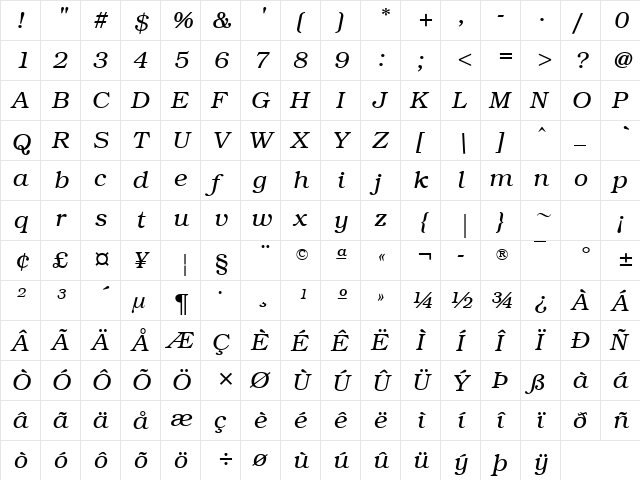
PC Brussels LightItalic
Design Context for PC Brussels Typeface
PC Brussels is a composed and adaptable typeface that performs quietly and consistently across a wide range of design contexts. The dynamic lean of this cut emphasises speed and emphasis in any layout. Its slender proportions lend an understated elegance to any composition.
Pro Tip: Use PC Brussels for emphasis, pull quotes, and subheadings where its slanted energy can add rhythm to the layout.